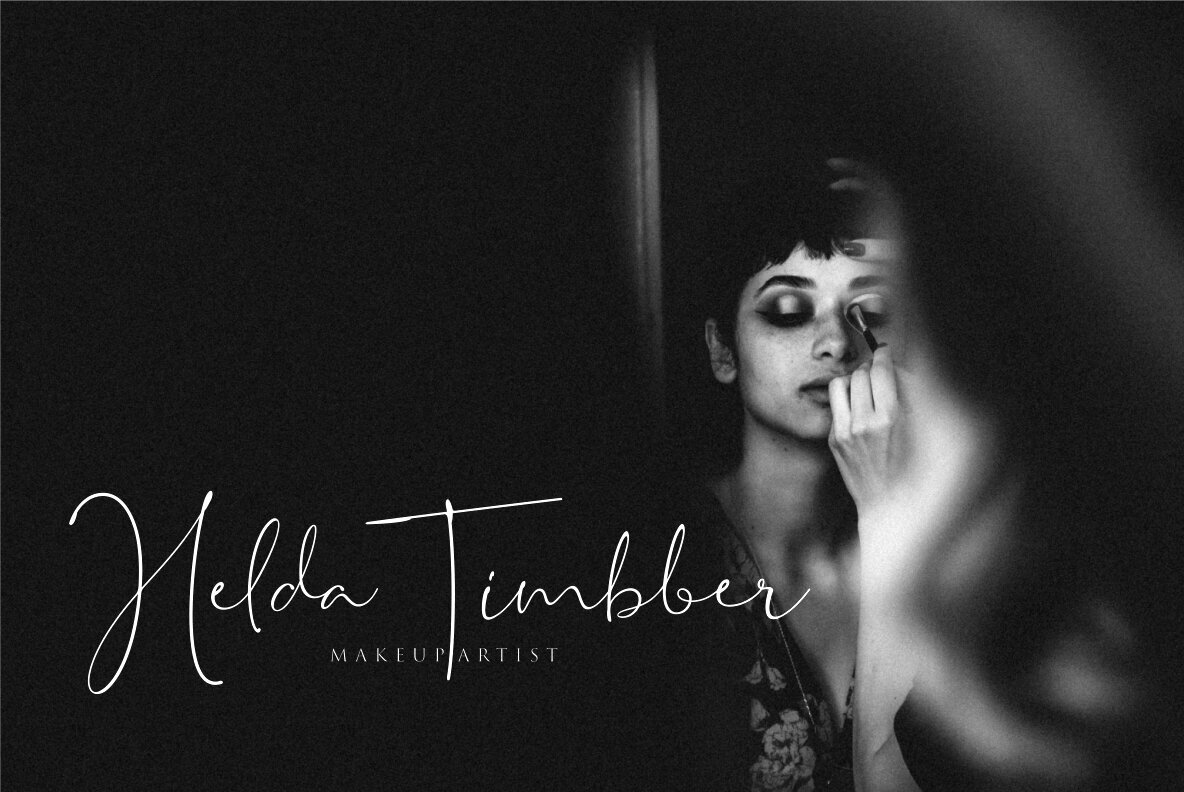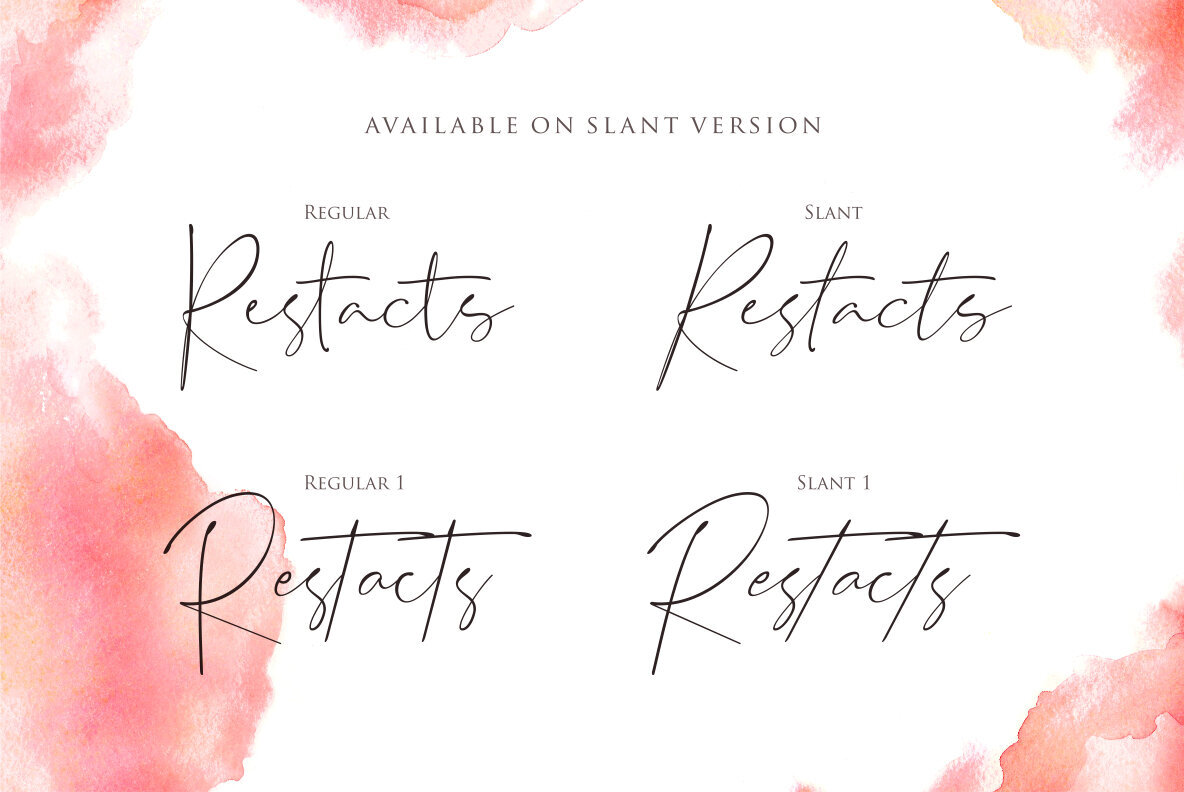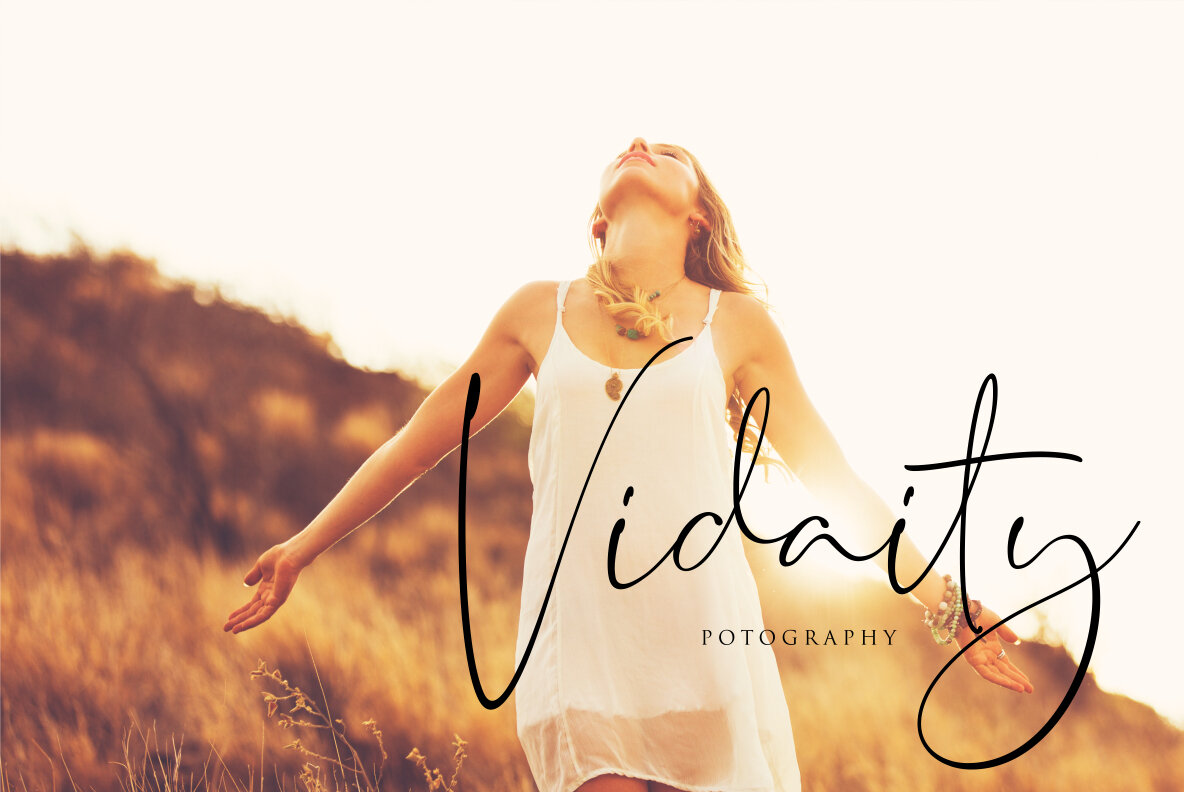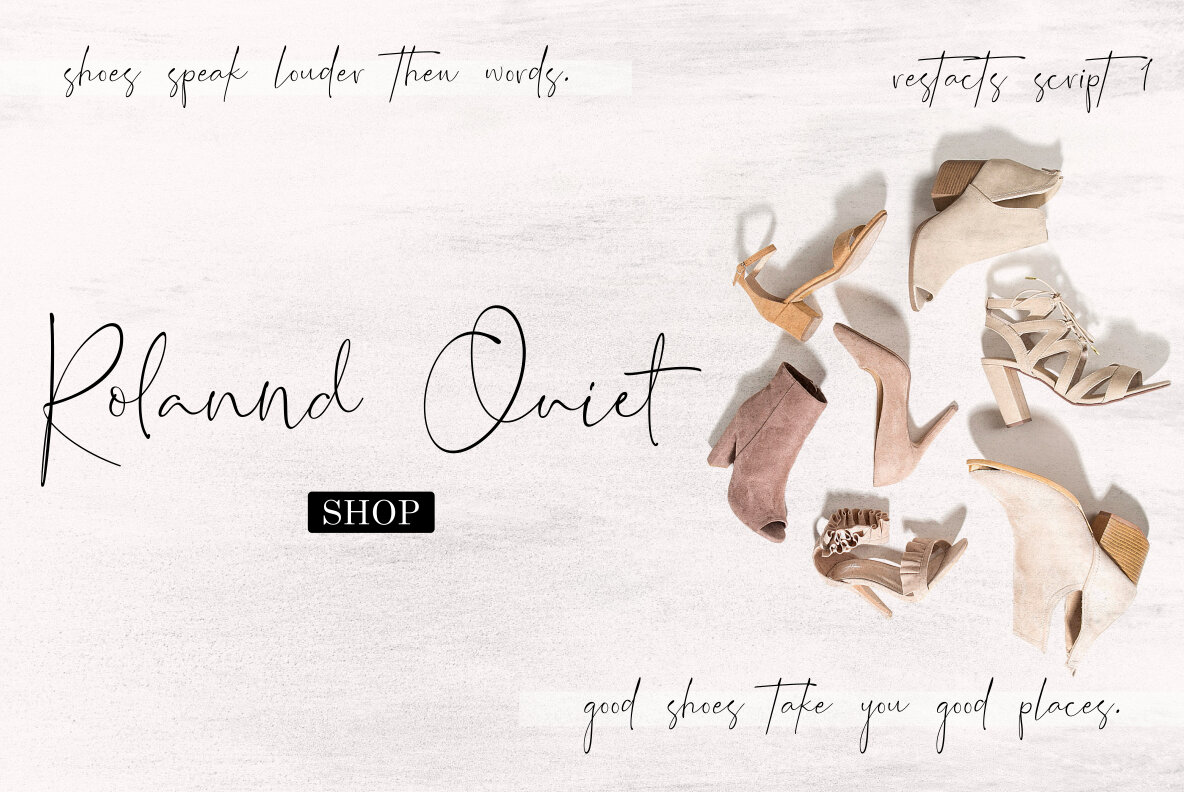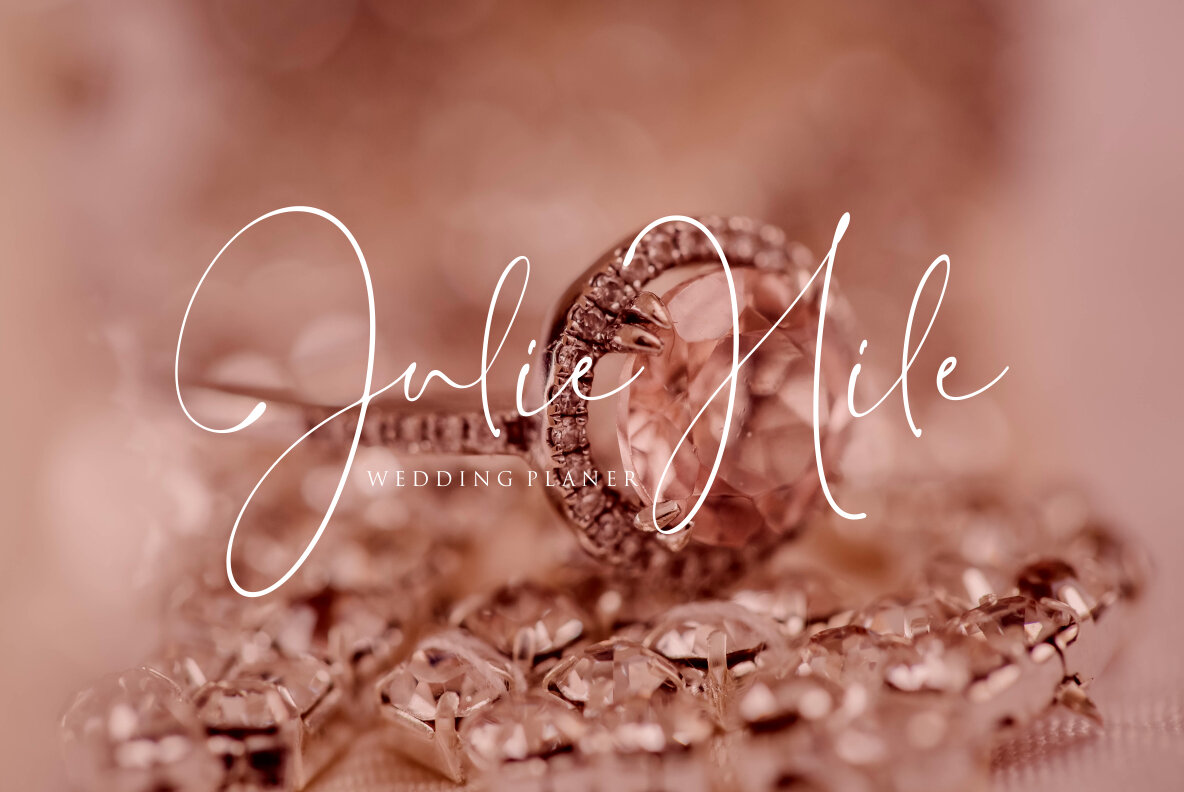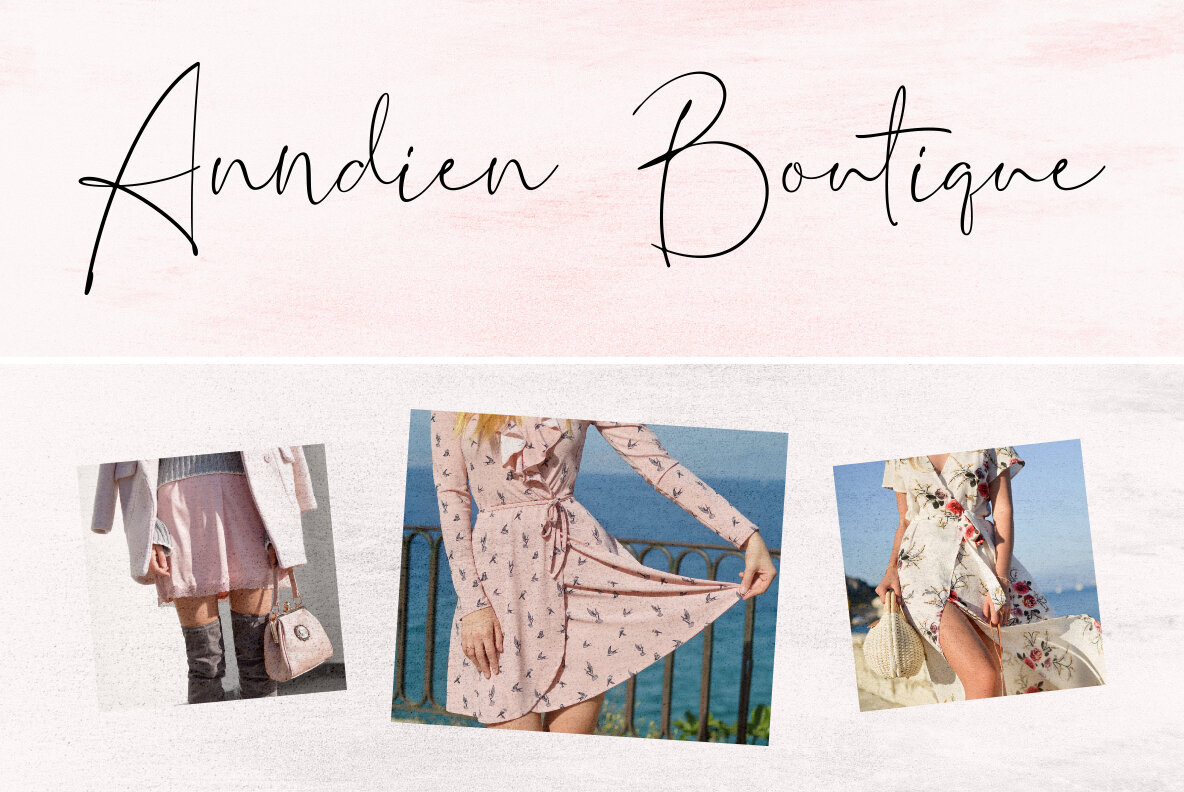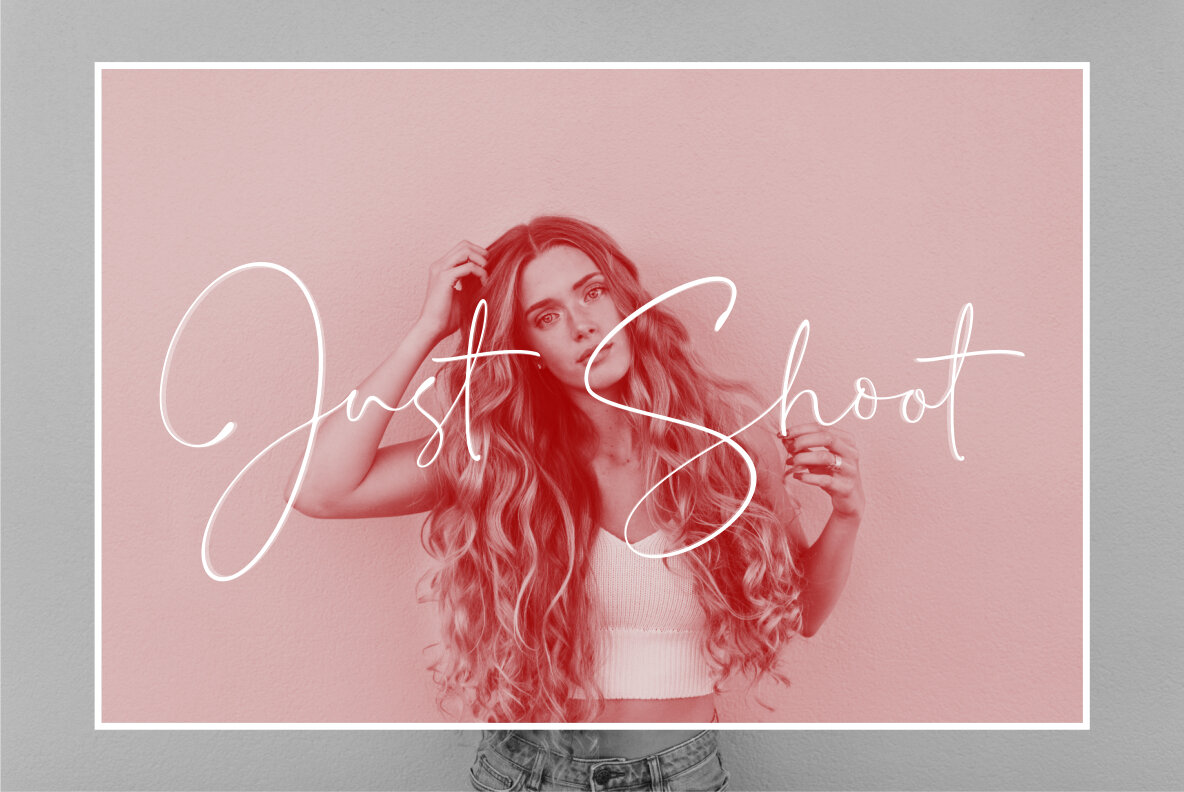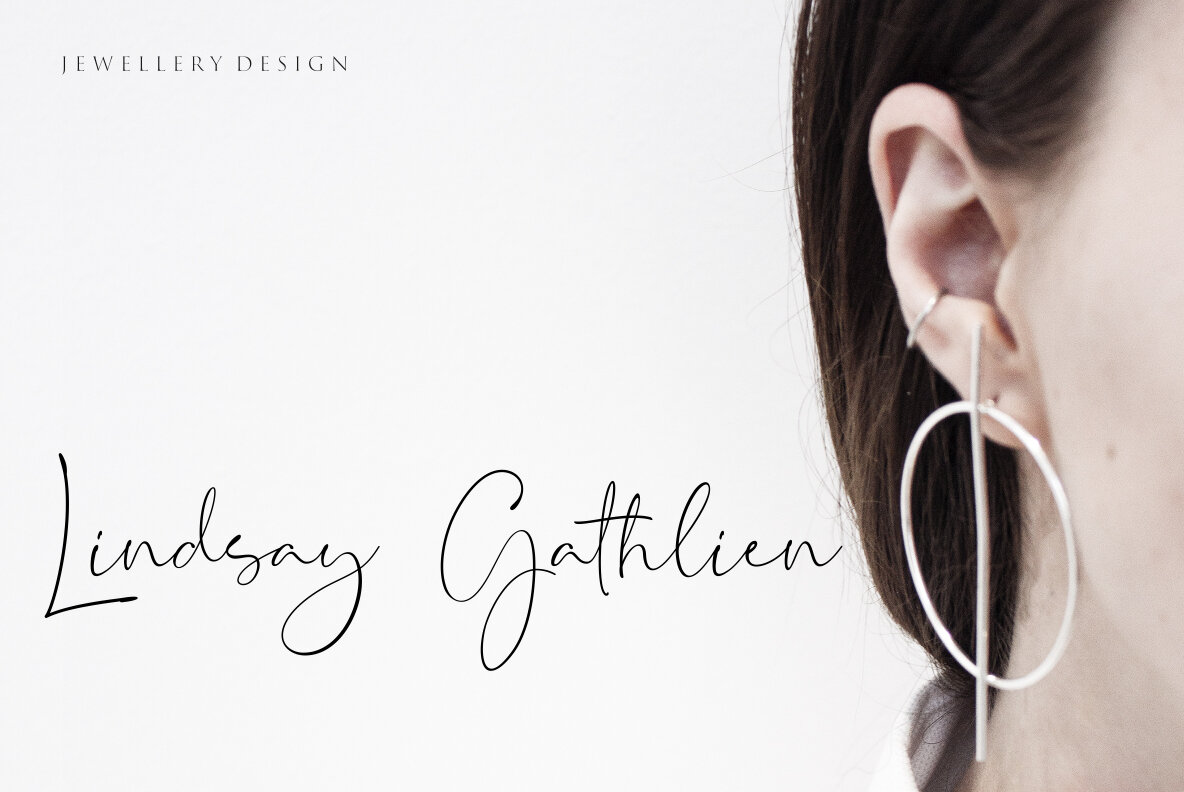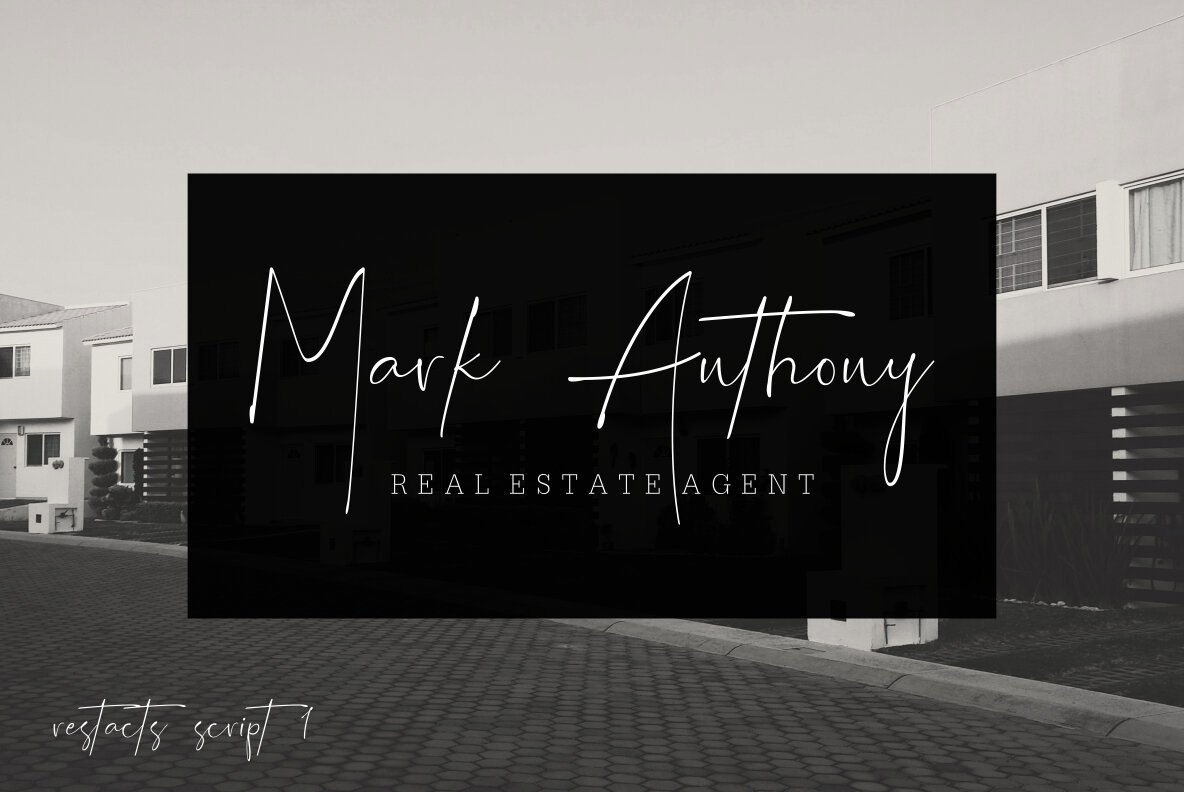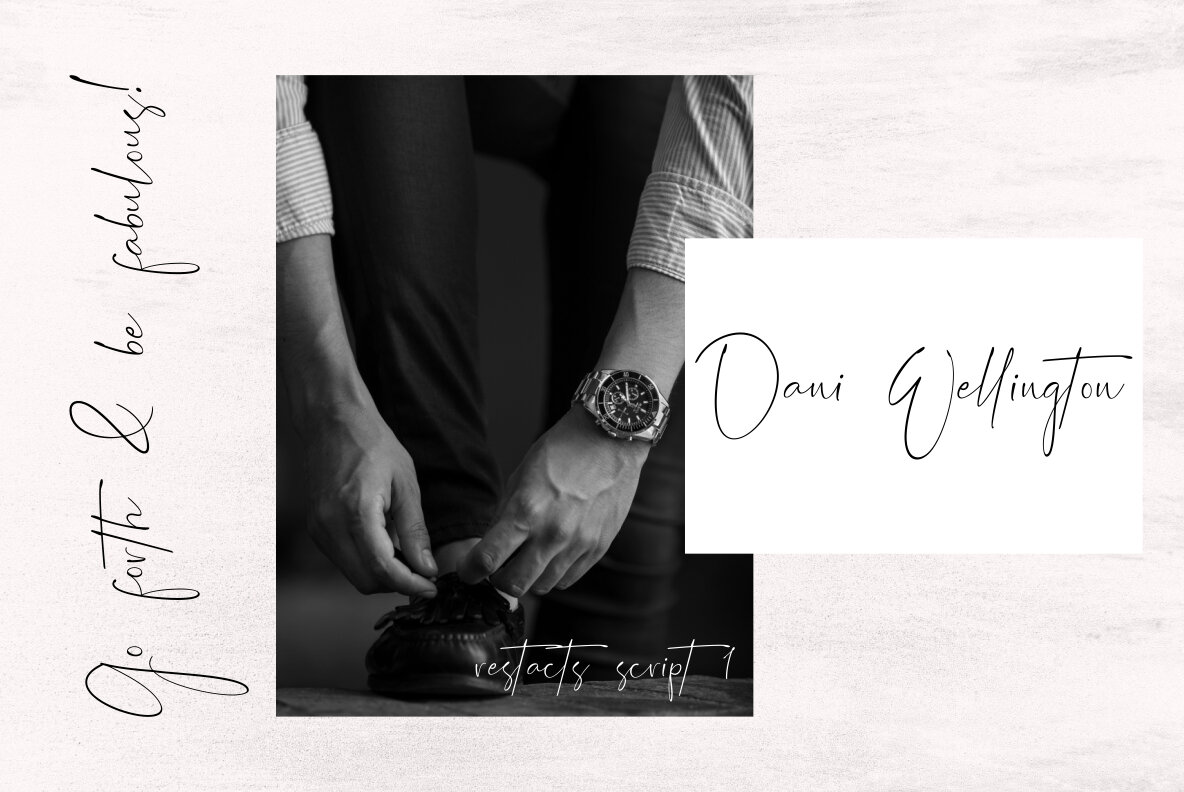
Restacts is a handwritten script font, which is really unique and can perfectly match any design project about fashion, beauty, natural setting, branding, and more. Restacts is also available in 2 variants, the first one is Restacts Script which is more casual and feminine with 101 gorgeous ligatures. The second variant is more elegant and bolder. Shout out all that’s inspiring you because it might just become the next font in your project with this handwritten script font just for you: Restacts!
Restacts features:
- A full set of upper & lowercase characters
- Numbers & Punctuation
- 101 Gorgeous Ligatures